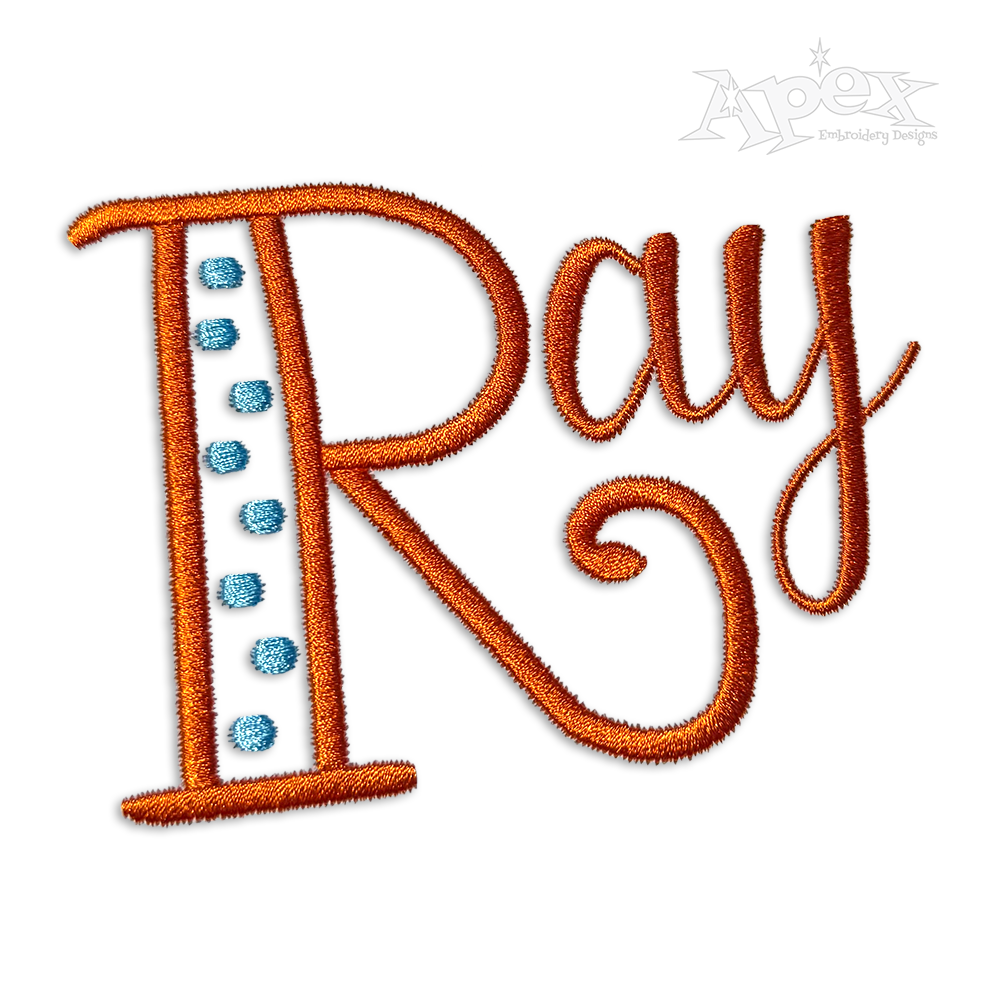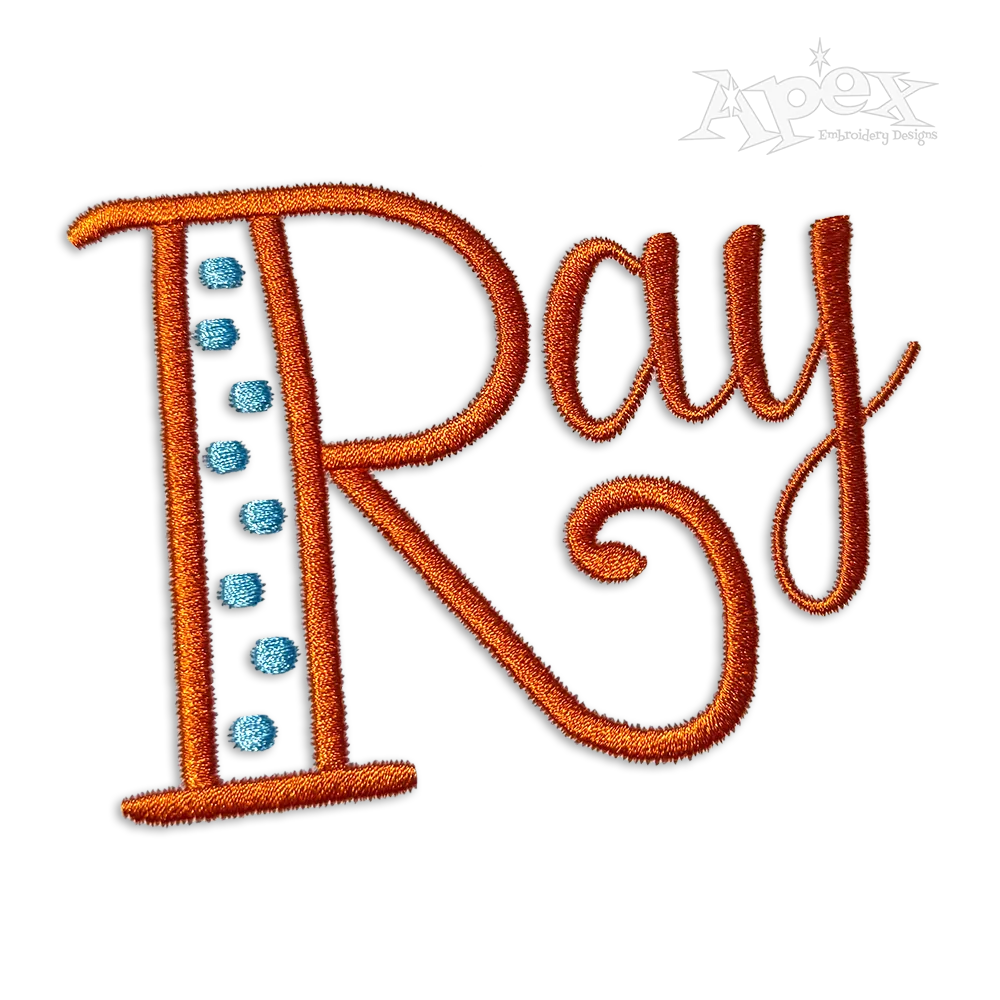
Polka Dots Open Embroidery Fonts
Infused with carefree charm and mid-century elegance, our Polka Dots Open embroidery font brings a fresh, effervescent spirit to custom monogramming. Inspired by timeless resort textiles and vintage summer stationery, each capital letter pairs an open, architectural silhouette with whimsical raised dots that catch the light beautifully. The dual-color configuration invites endless play with your thread palette—whether creating crisp coastal pairings in navy and white, cheerful pastels for little ones, or tone-on-tone textures for understated heirloom embroidery. It is a delightfully tactile alphabet designed to feel joyful, lighthearted, and impeccably finished on every machine.
This typography collection is digitized exclusively in crisp uppercase letterforms, making it an ideal choice for standalone statement initials and bold personalized monograms:
Project Ideas for Polka Dots Open Embroidery Fonts
Polka Dots Open Embroidery Fonts Craft & Letterform Details
Digitizing an openwork font with suspended interior motifs requires an artisan’s balance of density, structure, and travel paths. We engineered the outer outline with pristine satin columns that frame generous negative space, allowing your base fabric to breathe and show through seamlessly. Nestled inside, the polka dots are plotted with high-density, multi-directional satin stitch clusters that yield an irresistible, domed tactile dimension without pushing or puckering the surrounding fabric.
Because the design is programmed with a clear two-color sequence, your embroidery machine works efficiently with clean transitions between the open frame and the dotted accents. The stitch density is calibrated to preserve crisp geometric curves while resisting thread breaks, ensuring your finished monograms look as refined in hand as they do on screen.